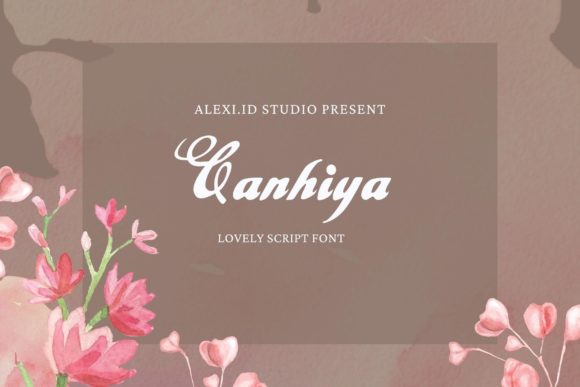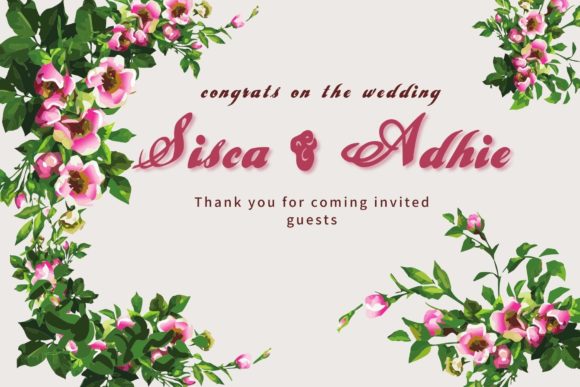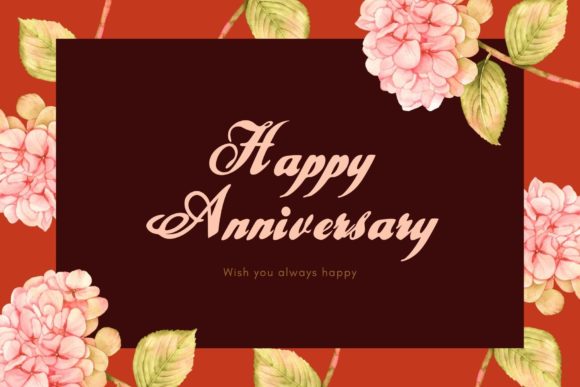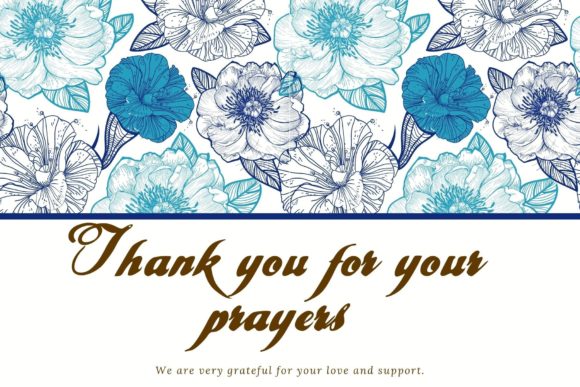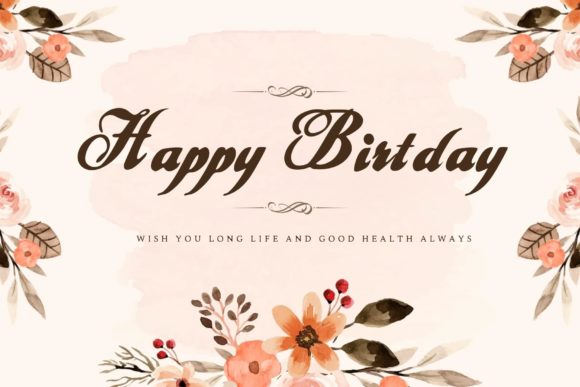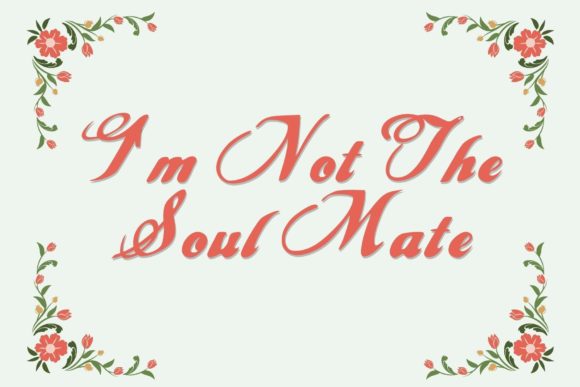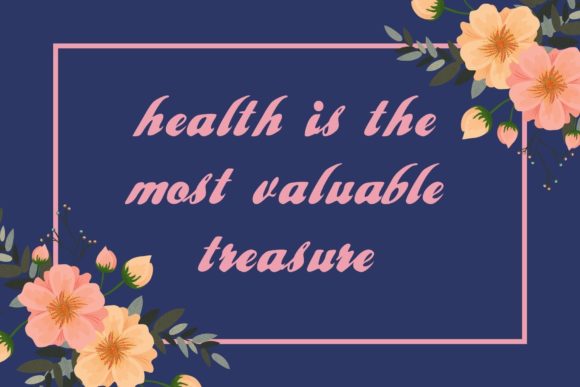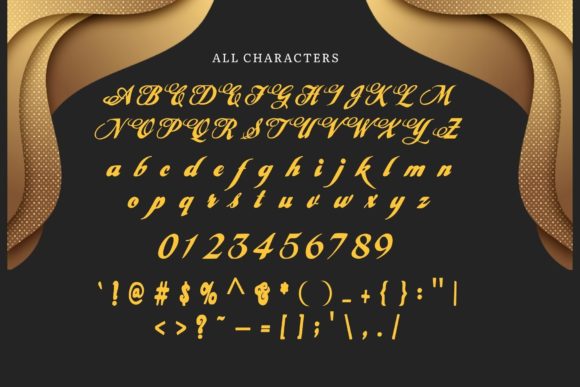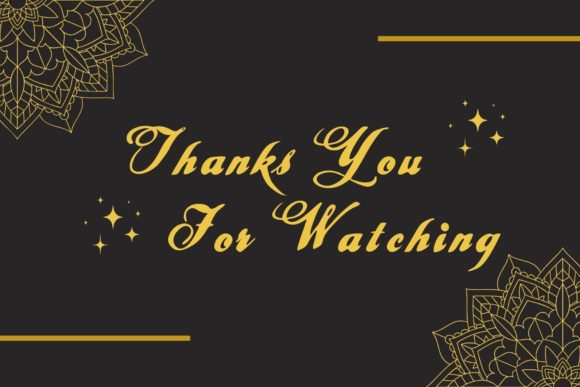
Canhiya Font
About Canhiya Font
“Canhiya” is a font characterized by its stylish and exceptionally distinctive handwritten design. This font stands out with its unique appearance and is versatile enough to be used across various creative contexts. Whether you’re utilizing it for crafts, digital design projects, presentations, or creating items like greeting cards, wedding materials, and calligraphy pieces, “Canhiya” has the potential to become your go-to font, suitable for any occasion.
The font’s appeal lies in its ability to bring a touch of individuality and modern style to diverse design ventures. Its eye-catching, handwritten aesthetic offers a personal and artistic flair that can enhance the visual impact of your work.
“Canhiya” thrives in multiple scenarios, ranging from casual crafts to more formal endeavors like wedding invitations and presentations. Its adaptability and unique look make it a font that can easily become a favorite choice for designers, artists, and creators across various fields.
In essence, “Canhiya” is a font that resonates with both style and originality. Its versatility and potential for creative expression make it an excellent choice for anyone seeking a font that can elevate their designs, regardless of the occasion.